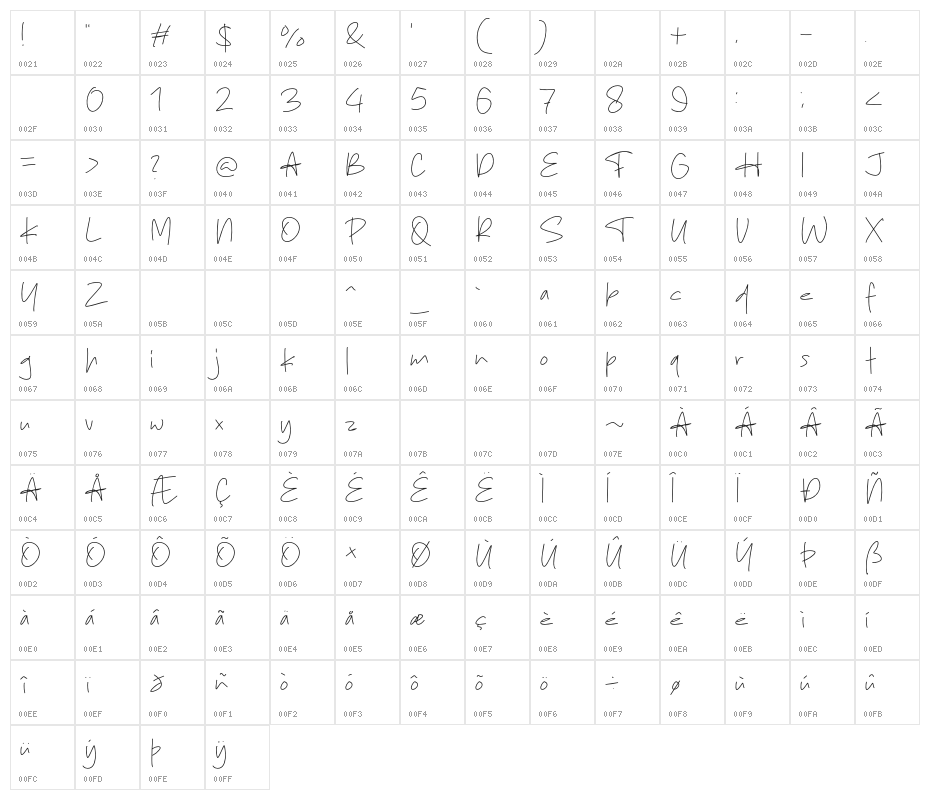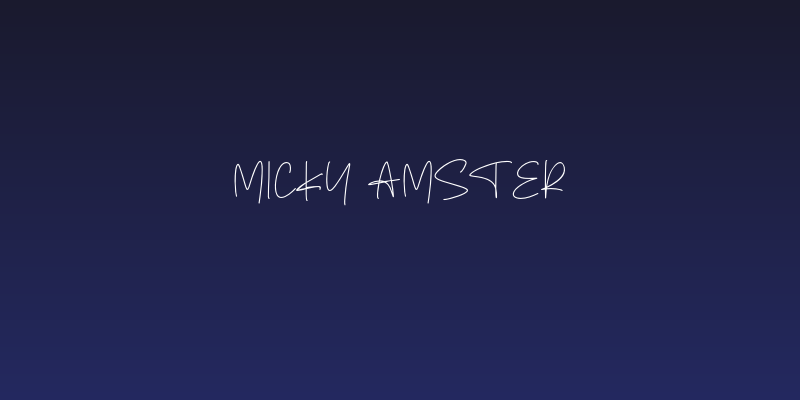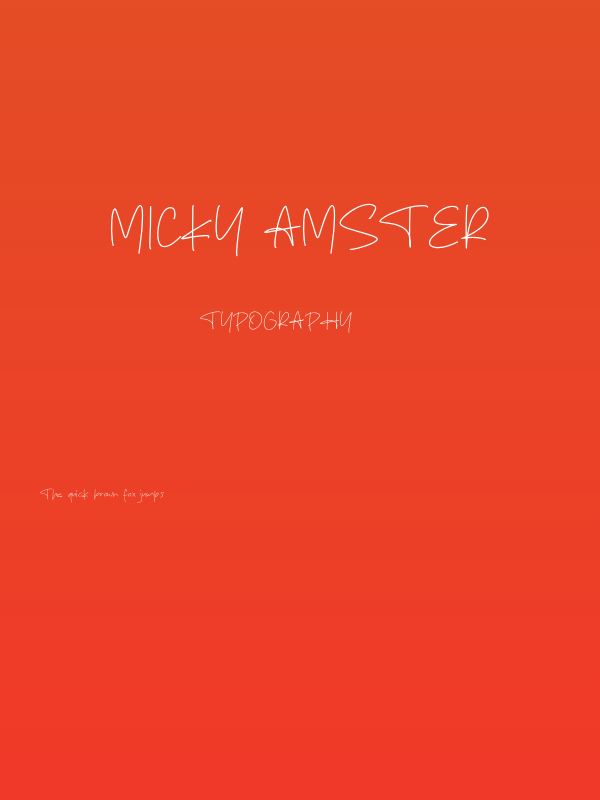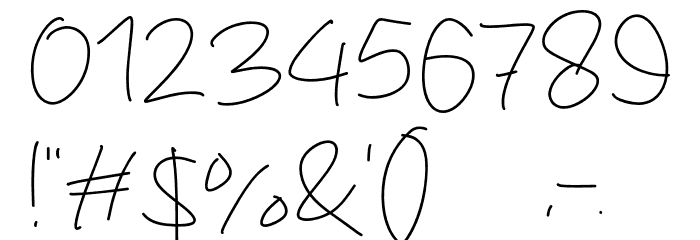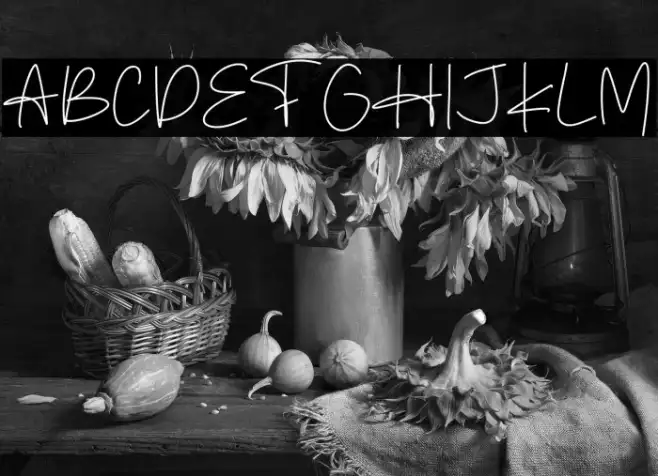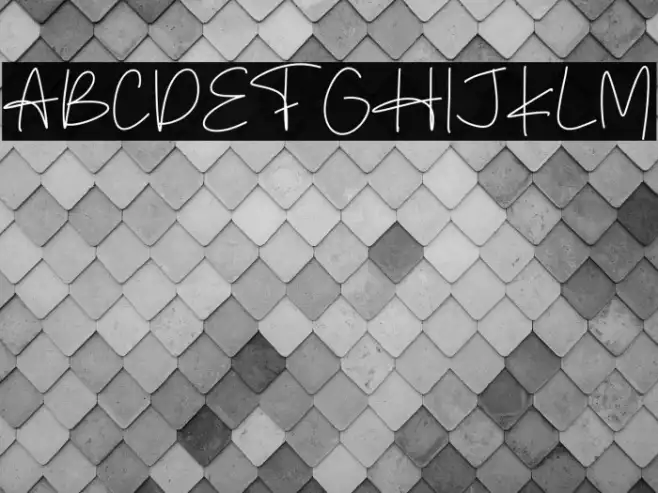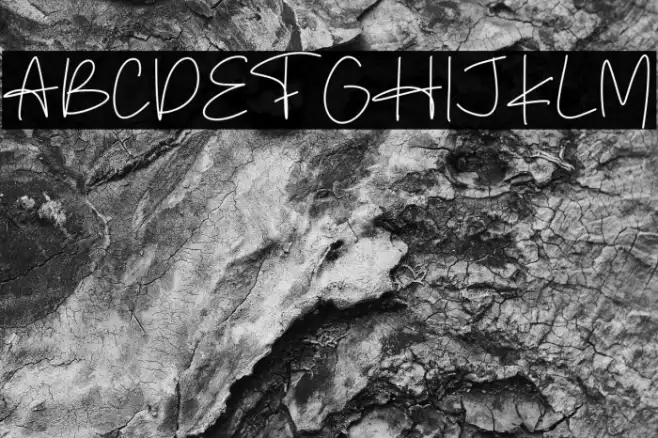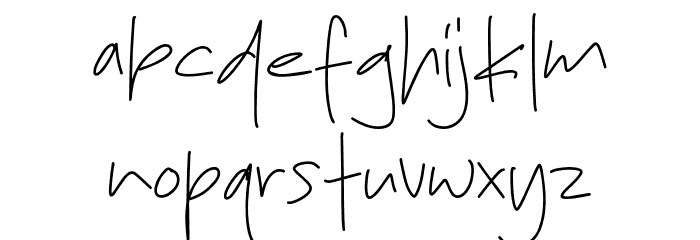
Micky Amster Font
Micky Amster Description
This font exudes a casual and playful handwritten style, characterized by its loose and flowing strokes. The letters are slightly irregular, giving it an authentic and personal touch. The uppercase and lowercase letters maintain a consistent style, with a slight slant that adds to its informal appearance. The numerals and special characters are crafted with the same playful energy, making them blend seamlessly with the alphabet. This font is perfect for projects that require a personal and approachable feel, such as greeting cards, invitations, or casual branding.
| Use Case | Headlines, Informal text, Personal notes |
| Proposed Projects | Greeting cards, invitations, casual branding, personal notes. |